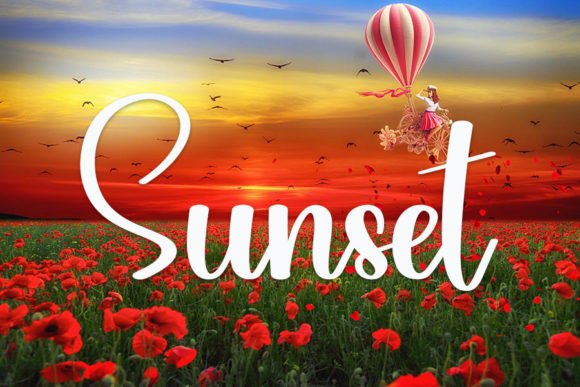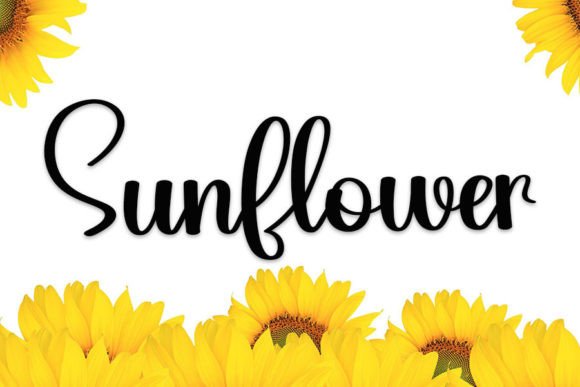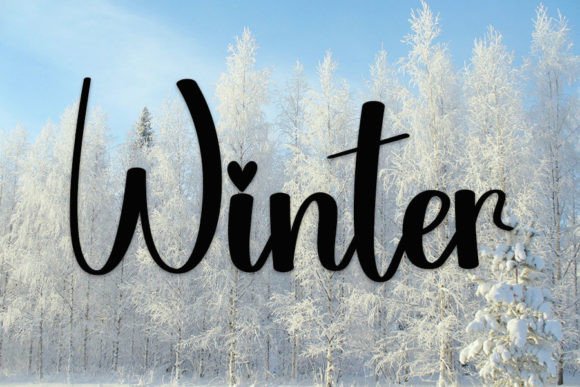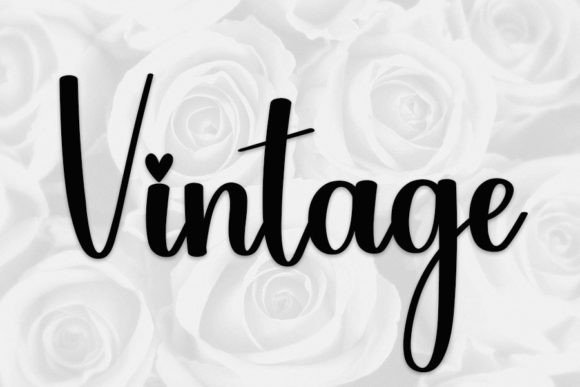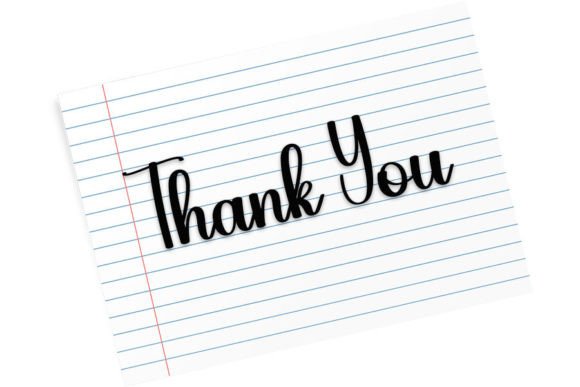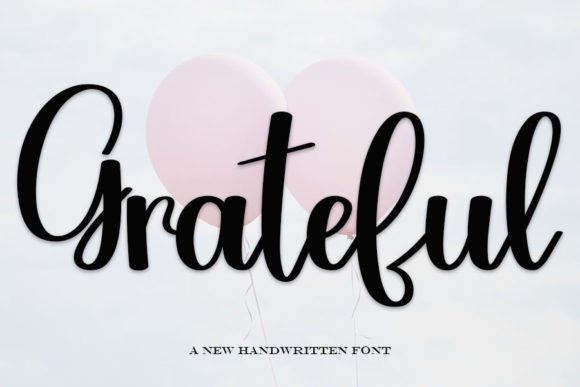
Grateful Font: Elevate Your Designs with Elegance and Timelessness
Are you on the hunt for a font that exudes elegance, sophistication, and a touch of handmade charm? Look no further than the Grateful Font, a stunning handwritten typeface that is sure to capture your heart. With its distinct and timeless style, this beautiful font is perfect for designers and crafters seeking to add a personal touch to their projects.
The Beauty of Grateful Font
Described as neat and beautiful, the Grateful Font boasts an elegant touch that sets it apart from other fonts. Its handwritten nature gives it a unique, organic feel that is reminiscent of traditional calligraphy. The font’s smooth lines, flowing curves, and precise lettering create a sense of refinement and luxury, making it ideal for projects that require a high level of sophistication.
What Makes Grateful Font Stand Out?
So, what makes the Grateful Font so special? Here are just a few features that set it apart:
- Distinctive style: The Grateful Font has an incredibly distinct style that is both modern and timeless. Its elegant touch and refined lines make it perfect for creating designs that are both contemporary and classic.
- Handwritten charm: The font’s handwritten nature gives it a personal, human touch that is hard to find in digital fonts. This makes it perfect for projects that require a sense of warmth and personality.
- Versatility: The Grateful Font is incredibly versatile, making it suitable for a wide range of projects, from branding and advertising to packaging and stationery.
- Elegant touch: The font’s elegant touch makes it perfect for creating designs that require a high level of sophistication, such as luxury brands, high-end products, and special occasions.
The Grateful Font is a dream come true for designers and crafters seeking to add a personal touch to their projects. Whether you’re creating:
- Branding and logos: Use the Grateful Font to create stunning logos and branding materials that exude elegance and sophistication.
- Stationery and invitations: Add a touch of handmade charm to your stationery and invitations with this beautiful font.
- Packaging and labels: Use the Grateful Font to create eye-catching packaging and labels that stand out from the crowd.
- Digital and print designs: This font is perfect for creating stunning digital and print designs, from social media graphics to brochures and flyers.
Tips for Using Grateful Font
To get the most out of the Grateful Font, here are a few tips to keep in mind:
- Pair it with contrasting fonts: Pair the Grateful Font with contrasting fonts to create visual interest and add depth to your designs.
- Experiment with colors: Try out different colors and textures to add an extra layer of personality to your designs.
- Use it sparingly: Use the Grateful Font sparingly to create emphasis and draw attention to specific elements in your design.
In conclusion, the Grateful Font is a stunning handwritten typeface that is sure to capture your heart. With its distinct and timeless style, elegant touch, and versatility, it’s perfect for designers and crafters seeking to add a personal touch to their projects. So why wait? Fall in love with the Grateful Font and use it to create spectacular designs that stand out from the crowd!